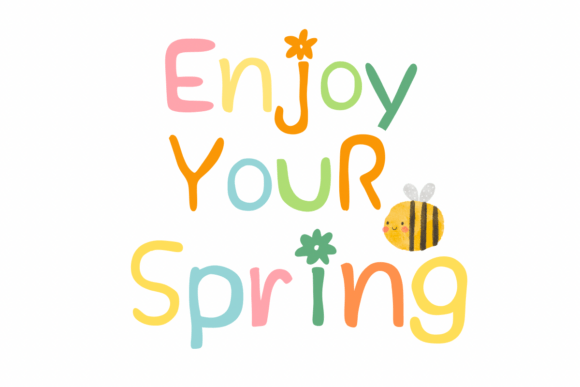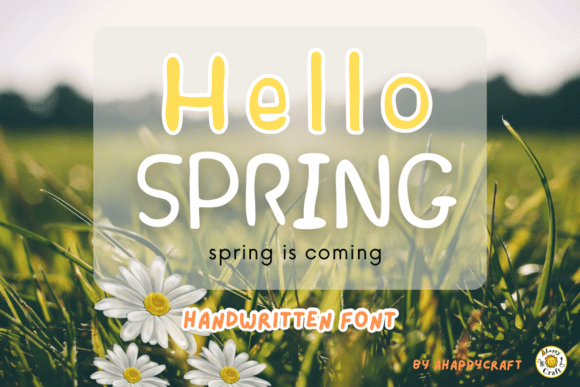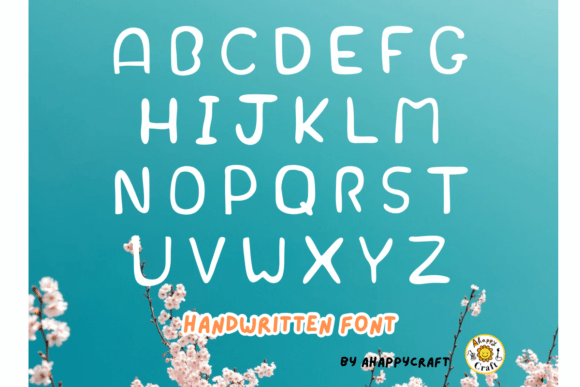
Hello Spring Font
Doodle hello Spring Handwritten Font is a playful and charming typeface inspired by hand-drawn doodles. With its whimsical strokes and casual, handwritten feel, this font brings a lighthearted and joyful vibe to any project. Perfect for spring-themed designs, greeting cards, planners, stickers, logos, or anything that needs a soft, girly touch. Each letter is crafted with a touch of floral fun, making it ideal for crafters, small business owners, and creatives who love cute and cozy vibes.